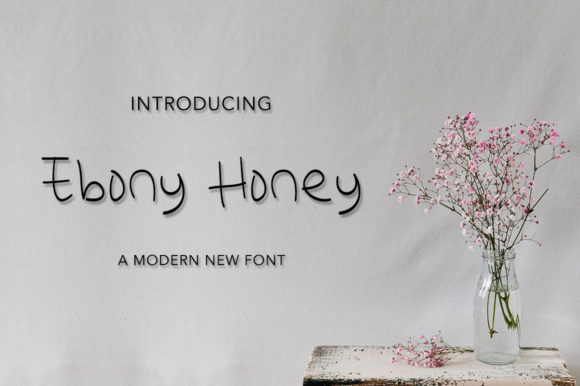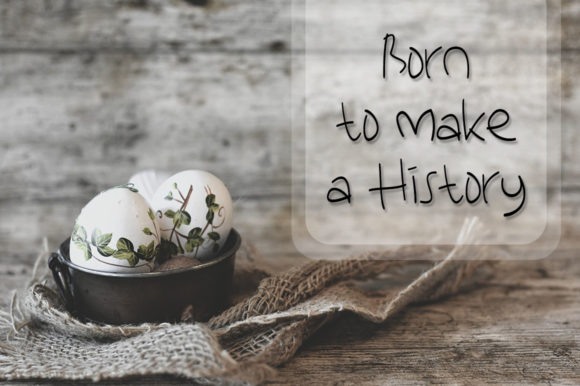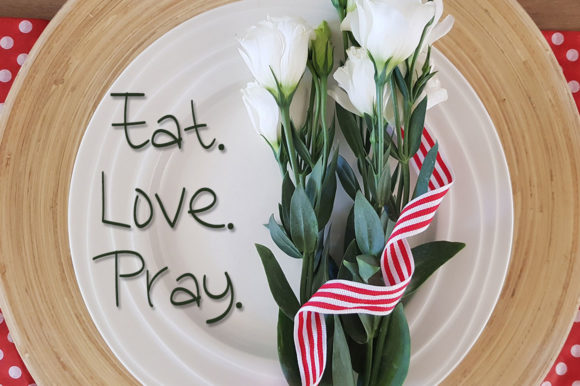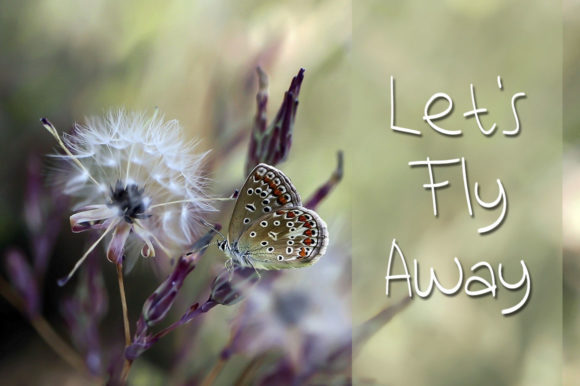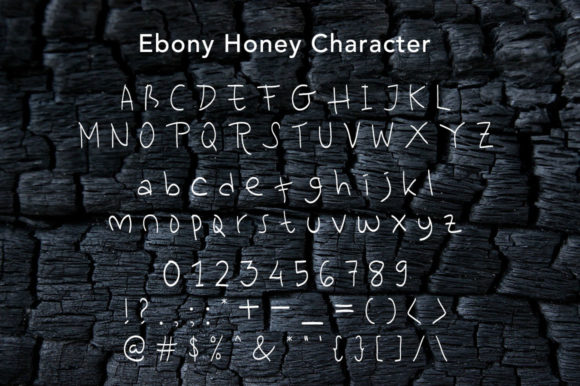
Ebony Honey Font
About Ebony Honey Font
Ebony Honey is a cute and casual handwritten font. This great font will look outstanding in any context, whether you’re looking for fonts for Instagram or calligraphy scripts for DIY projects, Ebony Honey will turn any creative idea into a true piece of art!